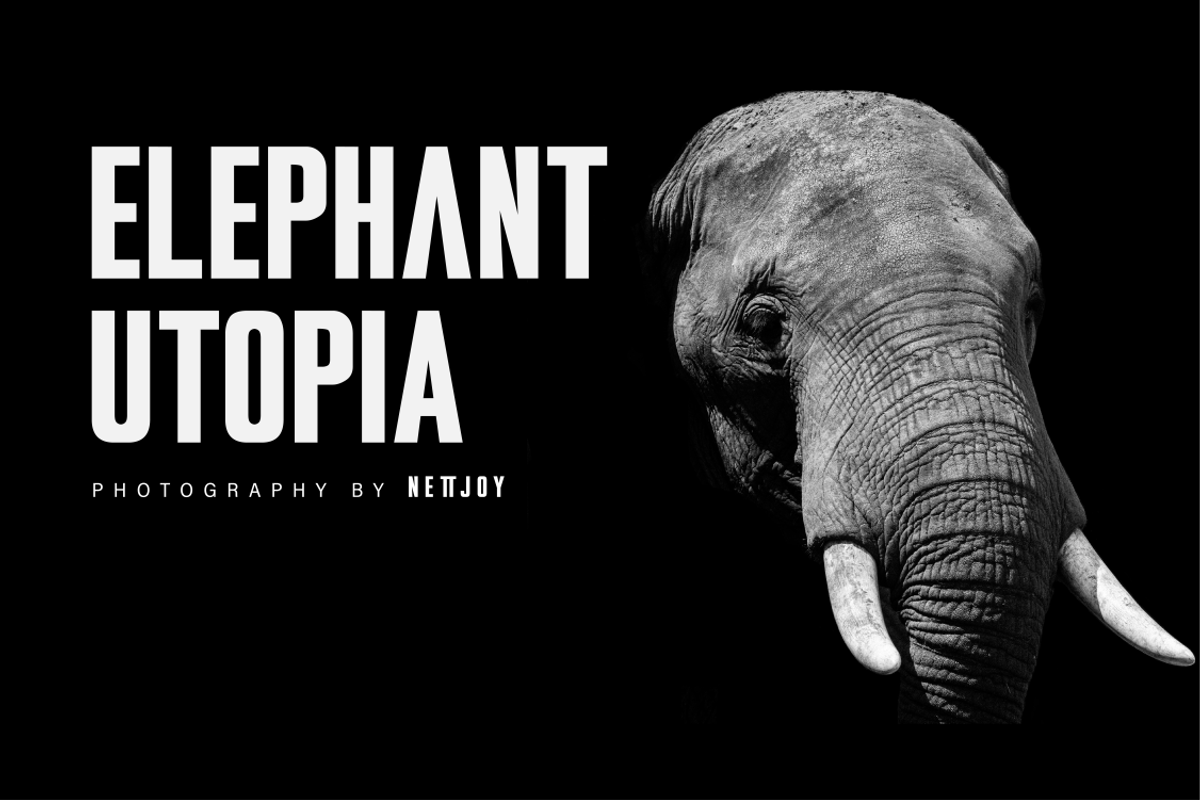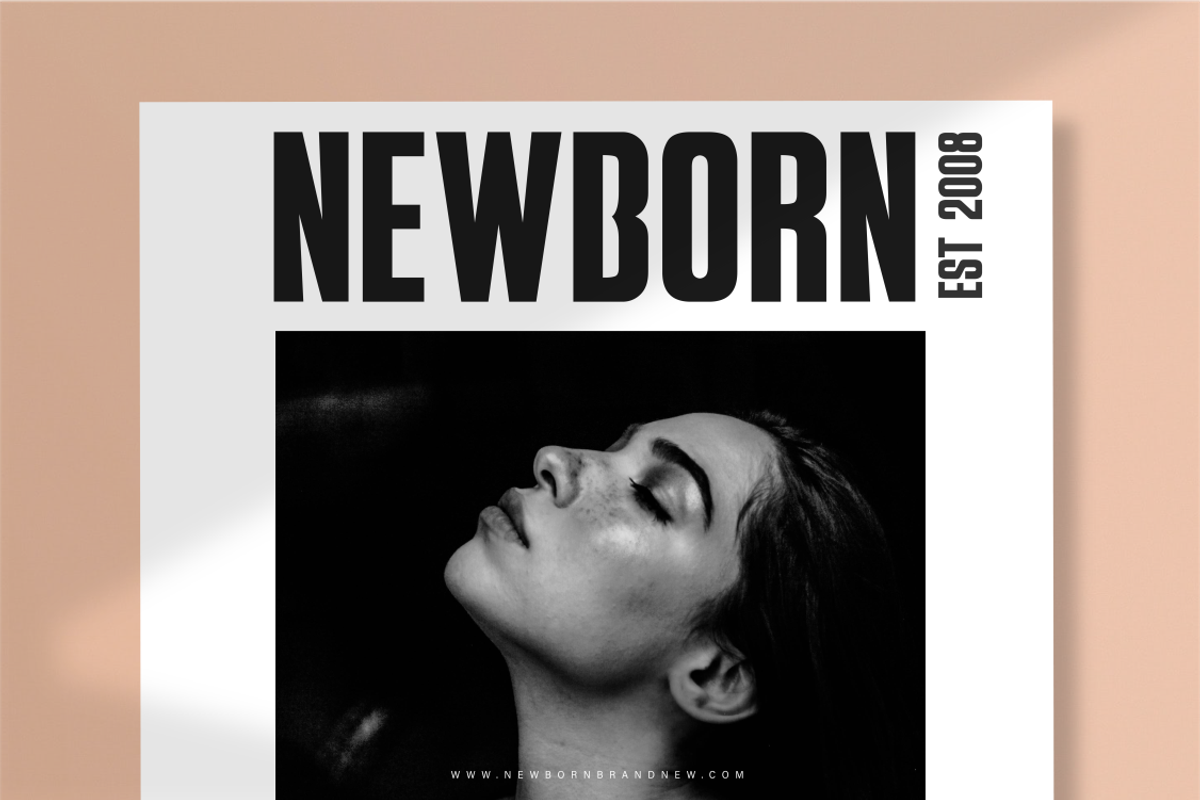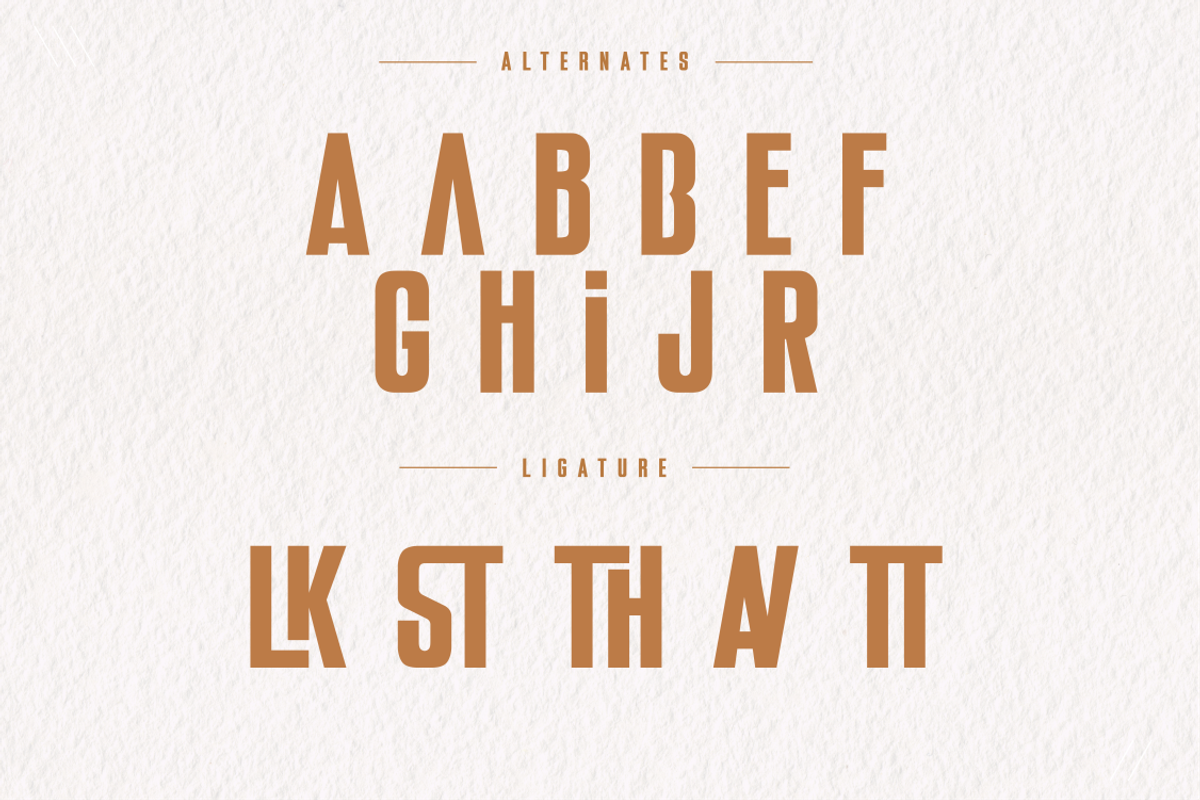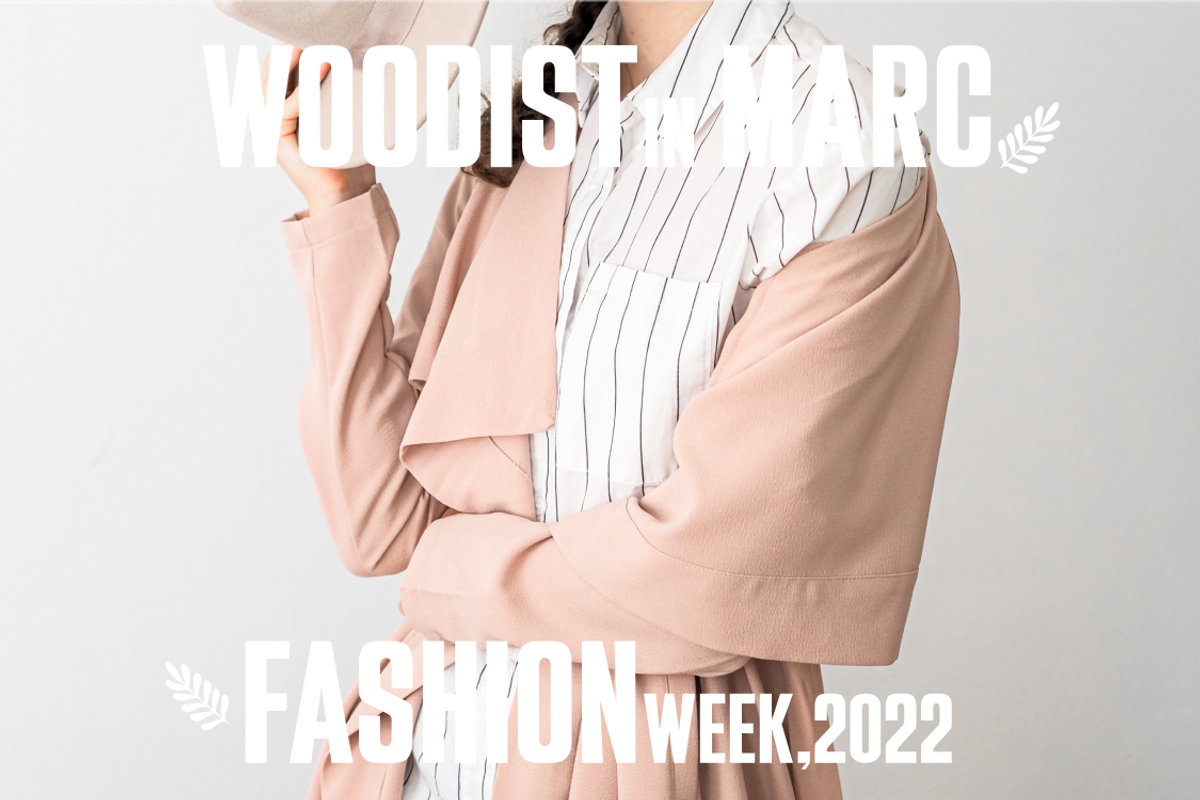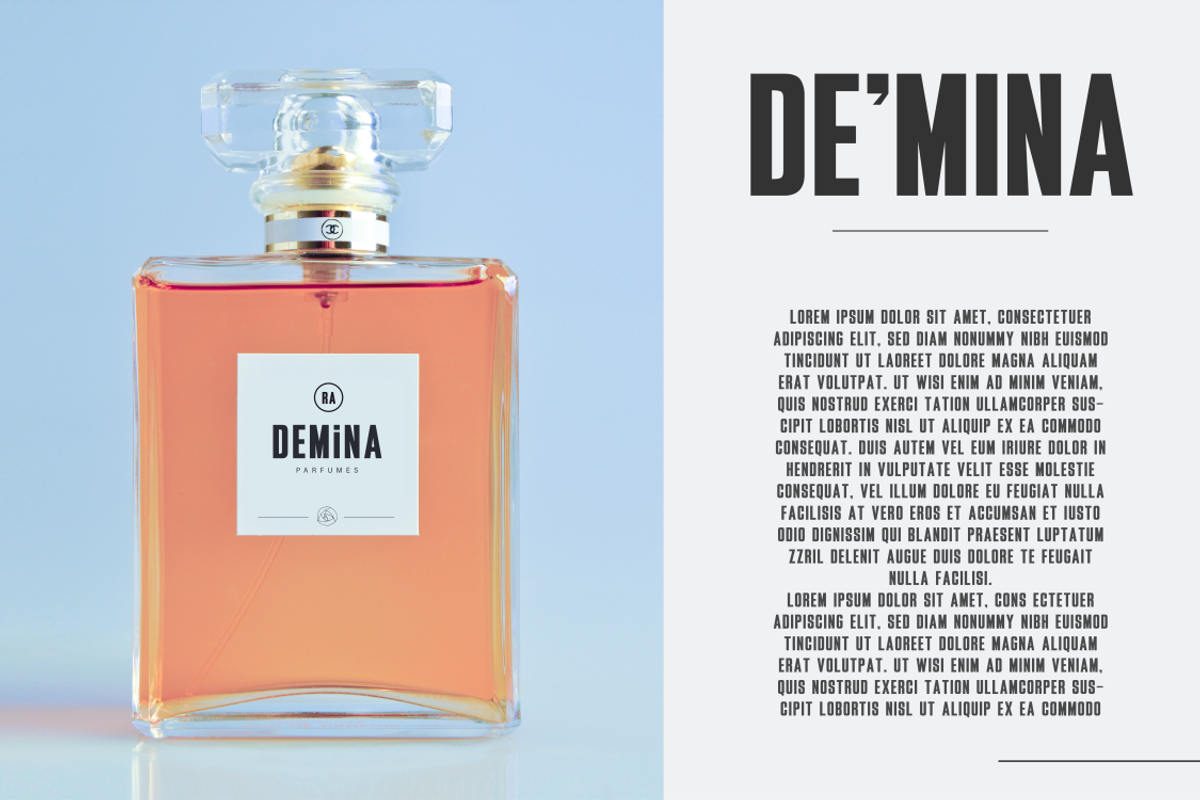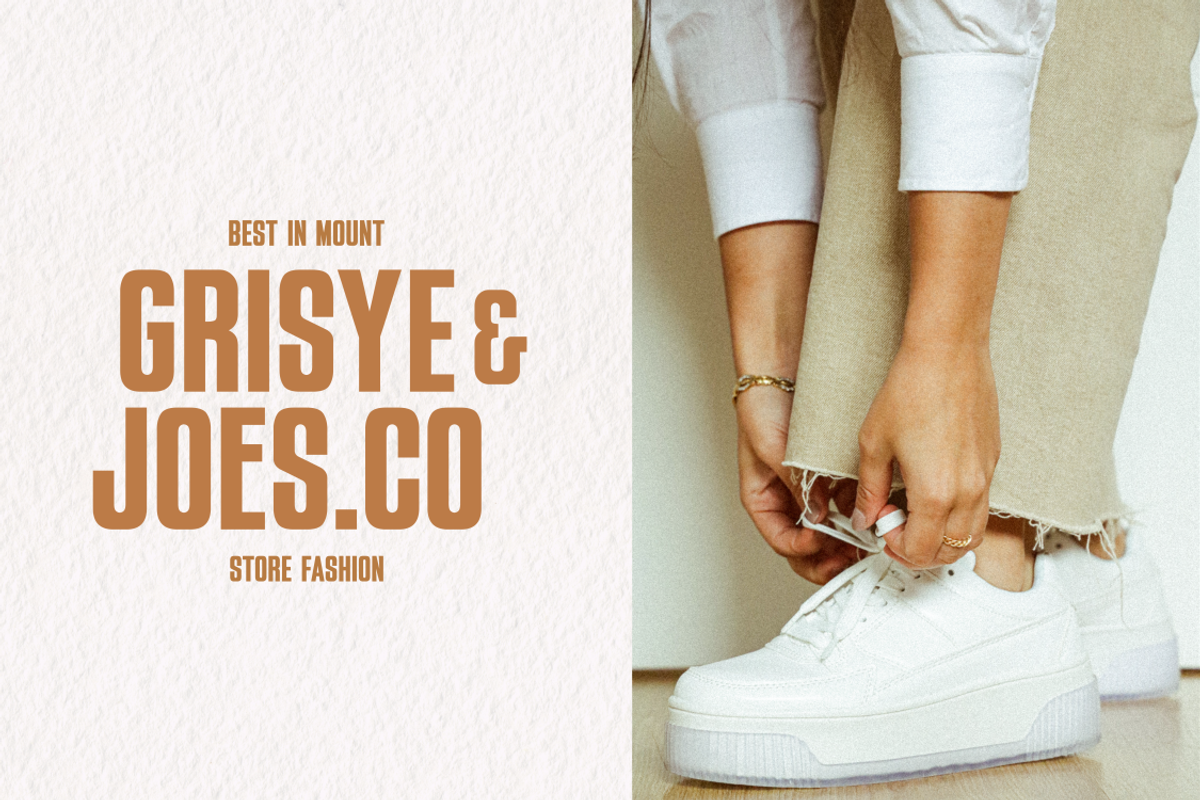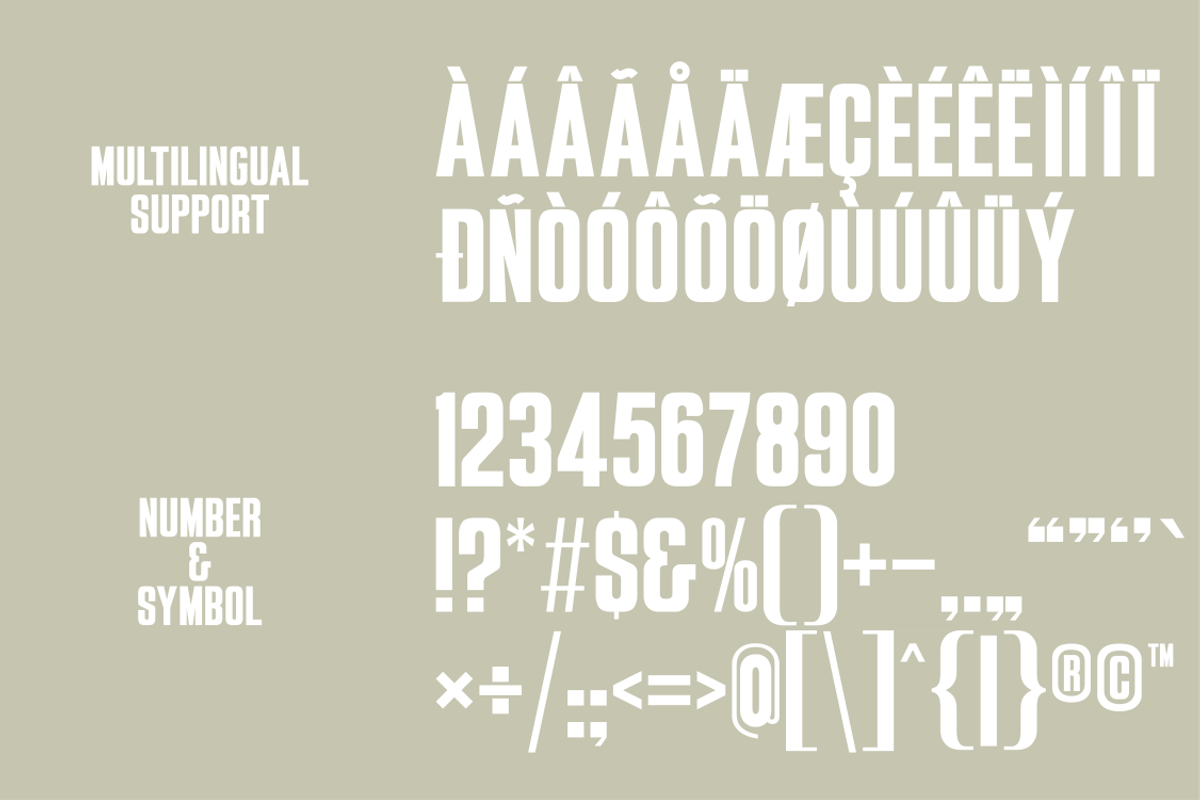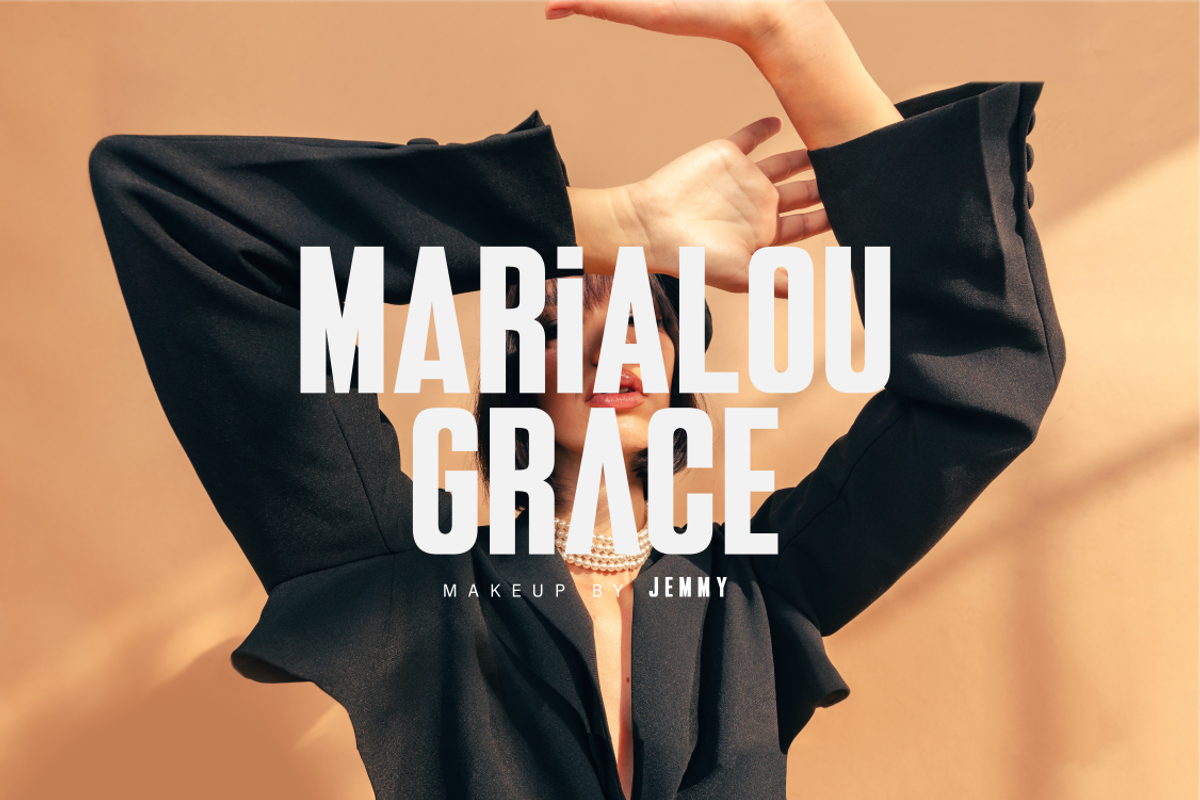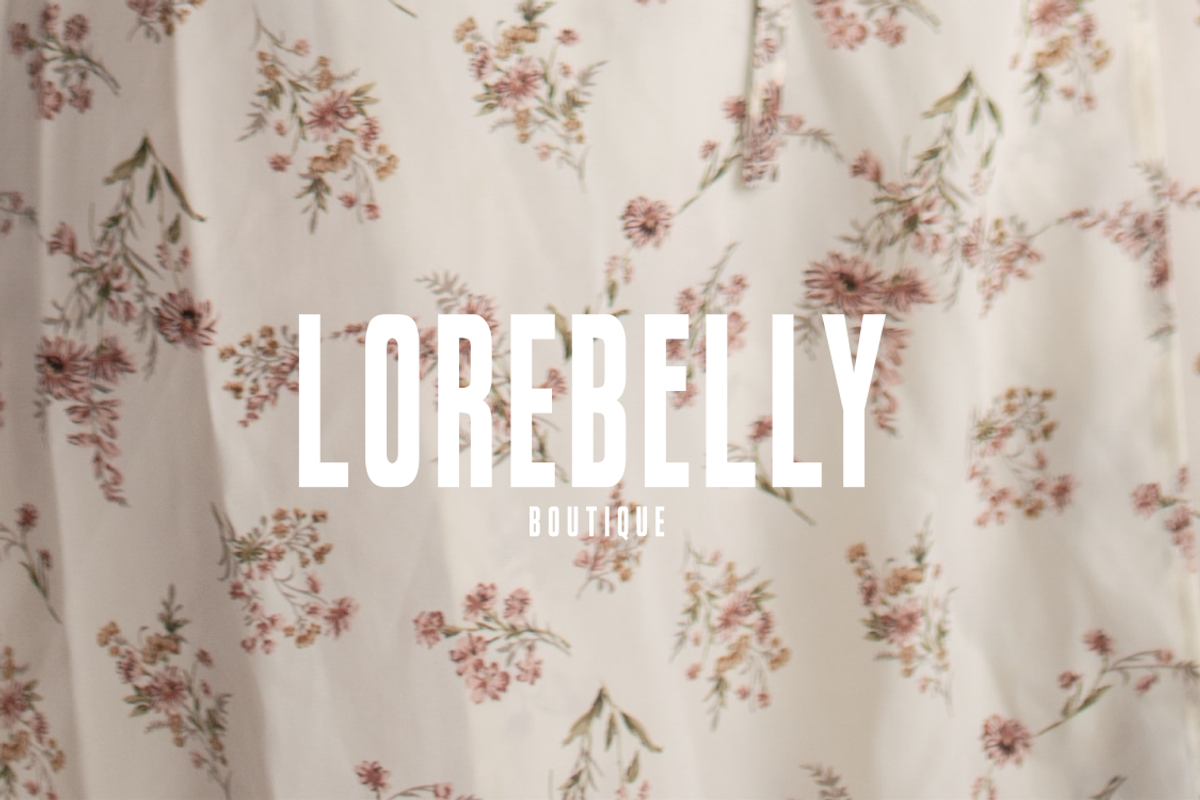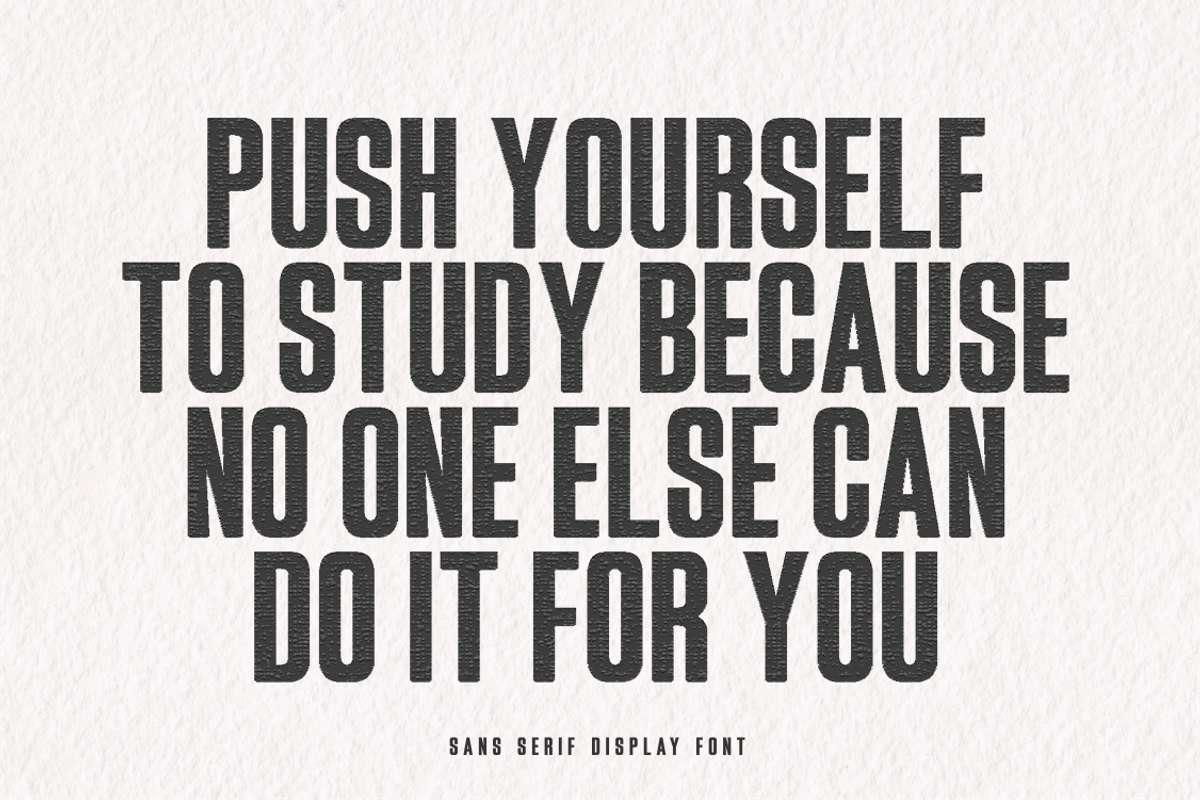
Hookride - Condensed Display Font
Introducing "Hookride," a condensed display font designed to make a bold statement. With its sleek and compact letterforms, this font commands attention and exudes modernity. Perfect for projects that demand a strong typographic presence, such as headlines, posters, or branding materials. "Hookride" adds a touch of sophistication and efficiency to your designs, ensuring they stand out with a bold and contemporary aesthetic.
- Alternates Glyphs